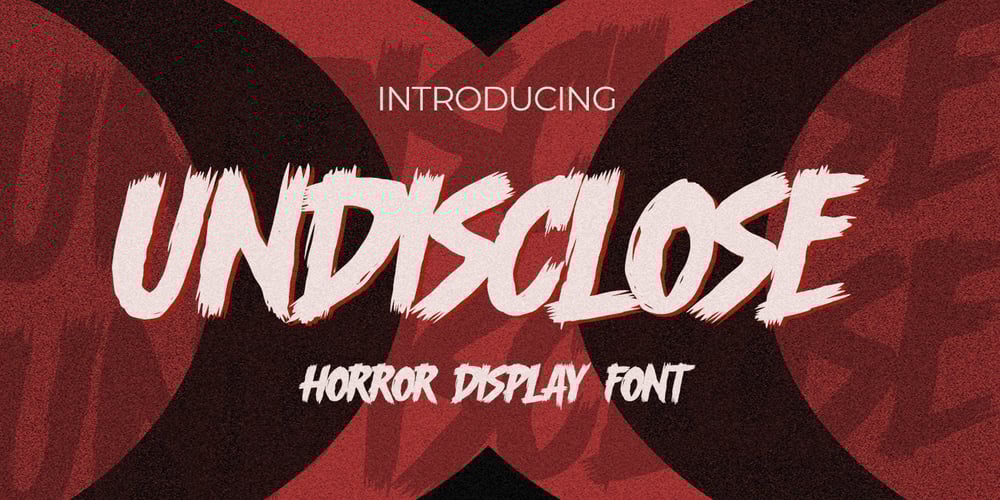
Undisclose Font Family was designed by Abdul Malik Wisnu, Anang Fibriyanto and published by Gassstype. Undisclose contains 1 styles and family package options. Hello Everyone, introduce our new product Font UNDISCLOSE it is Horror Display Font.This is a Textured Natural Style and Strong style with a Cool style and dramatic movement.This font UNDISCLOSE is great for your next creative project such as logos, printed quotes, invitations, cards, product packaging, headers, Logotype, Letterhead, Poster, Design this font is great for your creative projects such as watermark on photography, and perfect for logos & branding, invitation,advertisements,product designs, stationery.You can activate Ligatures and 5 Alternate glyphs OpenType panel.